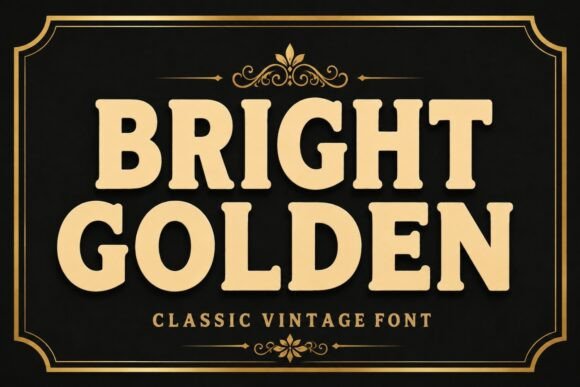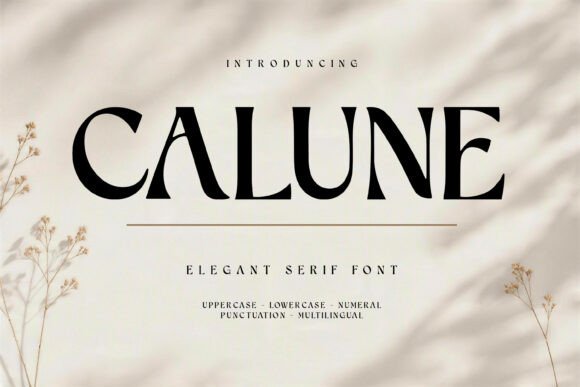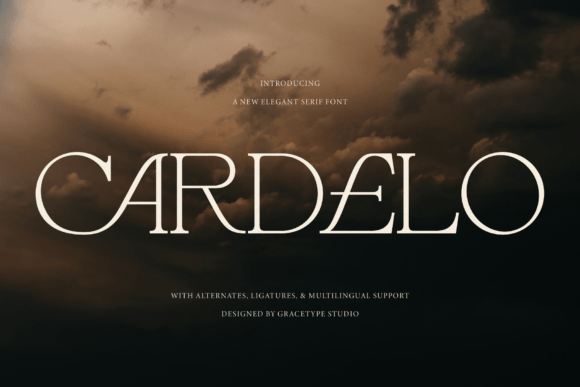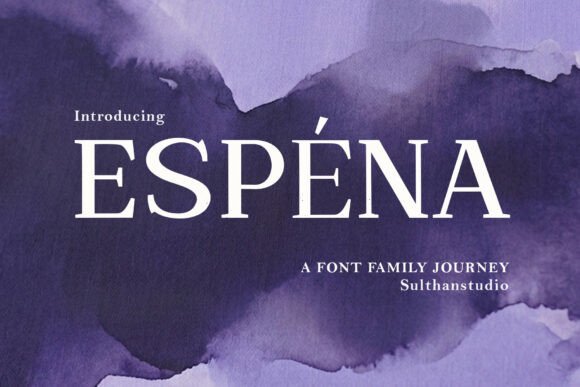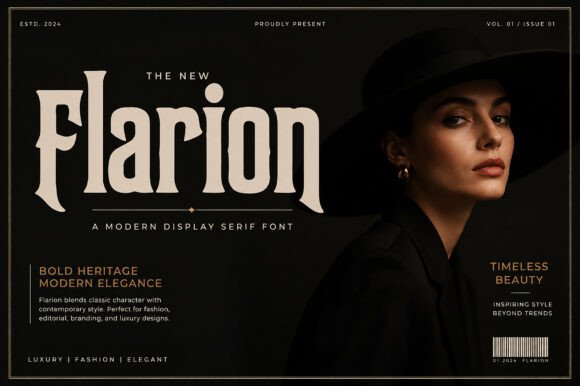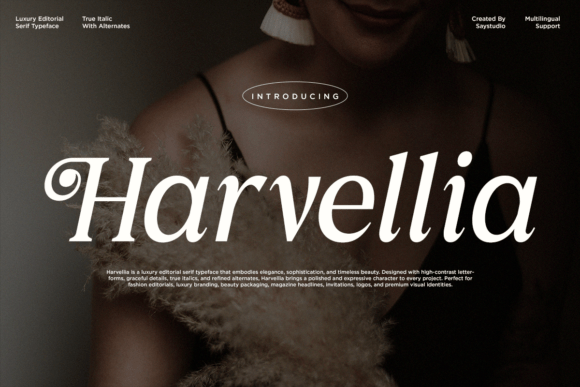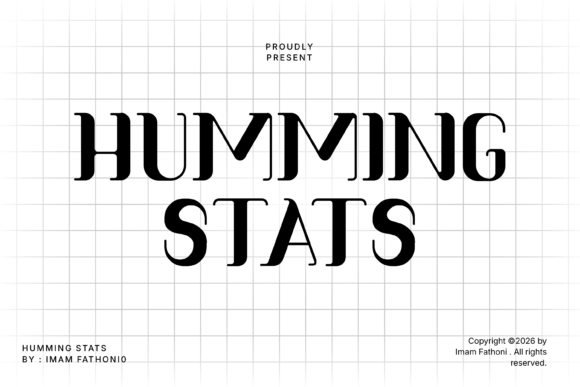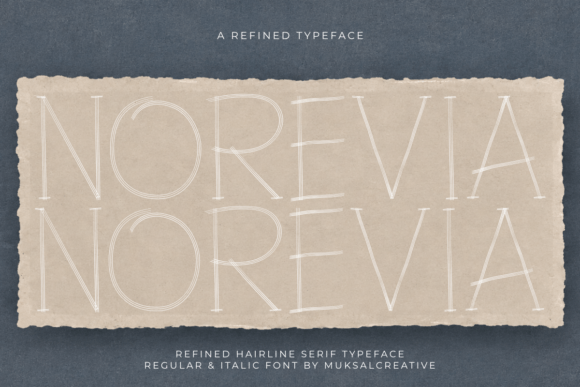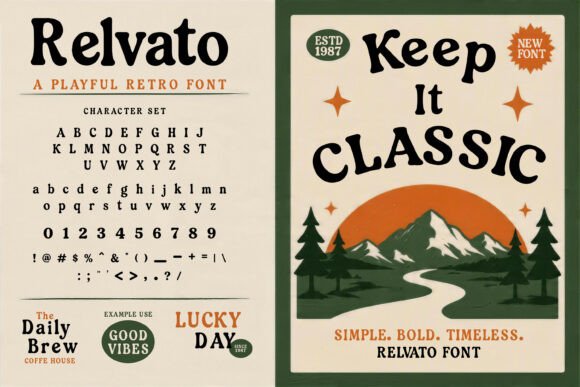
Serif fonts sell luxury more reliably than any other typographic decision, which is why the category is crowded with releases that describe themselves in identical language. Elegant, refined, sophisticated, editorial. These sixteen recent serif fonts are covered with attention to the one thing the marketing copy never mentions: stroke contrast, and whether the font survives leaving a screen.
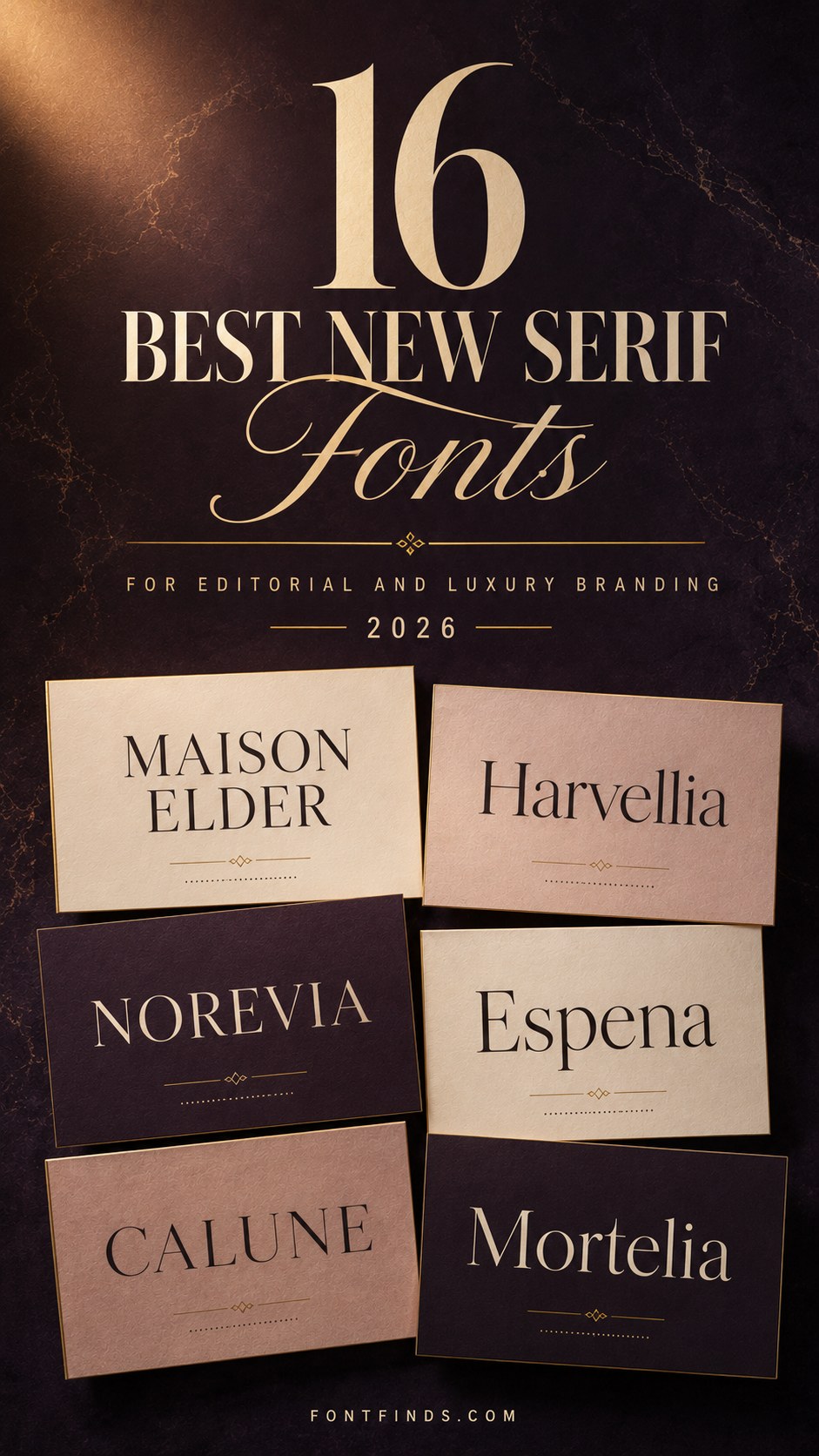
Stroke Contrast Decides Everything
Every practical question about a serif comes back to how much thinner the thin strokes are than the thick ones. That single measurement predicts where the font works and where it fails.
Low contrast. Thin and thick strokes are close in weight. Survives body text, small sizes, embroidery, uncoated paper and single-colour reproduction. Reads as sturdy and readable rather than luxurious.
Moderate contrast. Visible difference without extremes. The most useful range for brand work, since it reads as refined while still functioning at caption size and in most print conditions.
High contrast. Dramatic difference, approaching hairlines. Reads as expensive and fails in every physical production method. Screen and coated print only, and only at size.
Hairline. The thin strokes are barely present. Nothing looks more premium and nothing is more fragile. Large format and high-quality print exclusively.
Before comparing any two serifs, decide which band your project needs. That question eliminates most of the category and makes the remaining choice straightforward.
On identical marketing copy. Several fonts below describe themselves as elegant, refined and editorial in nearly the same words. That is not laziness, it is that the category sells on those associations. Judge from the letterforms in the specimen image, because the descriptions genuinely will not differentiate them.
16 New Serif Fonts
High Fashion Drama
1. Cardelo
Cardelo is built for high-fashion drama and editorial luxury. Fashion serifs share a specific technical signature: extreme stroke contrast, meaning the thin parts are dramatically thinner than the thick parts.
That contrast is the fastest route to perceived expense, and it is also the fastest route to a font that fails in production. Hairlines disappear in embroidery, break in foil stamping and vanish on uncoated paper. This is a screen and coated-print typeface.
My take: Extreme contrast is why it reads expensive and why it will not survive a woven label. Plan accordingly.
Contemporary Elegance
2. Moras
Moras blends fluid motion with structured sophistication. Fluid in a serif usually means slightly curved stems or asymmetric terminals, borrowed from calligraphy rather than from metal type.
Those calligraphic touches read as contemporary because historical serifs were geometrically rigid. The caution is that fluid details are the first thing lost when a font is scaled down, so check at small sizes before assuming the character carries through.
My take: Calligraphic details are what make it feel current and the first thing to vanish when scaled down.
Editorial Grace
3. Espena
Espena aims at refined artistic poise and high-fashion luxury. This is the third font in this batch describing itself in nearly identical terms, which says something useful about the market.
Luxury serif is a crowded category because it sells. That means competent releases are plentiful and genuinely distinctive ones are rare. If differentiation matters for your brief, look at the specific letterforms rather than the marketing language, because the copy will be the same everywhere.
My take: Luxury serif is crowded because it sells. Judge on letterforms, since every listing uses identical language.
High Contrast
4. Harvellia
Harvellia is an elegant high-contrast serif for sophisticated contemporary work. High contrast is worth understanding as a spectrum rather than a binary.
Moderate contrast survives body text and small sizes. Extreme contrast, the Didone end, only works large. Before choosing, decide whether the font needs to carry captions and product details or only headlines, because that single question eliminates most of the category.
My take: Decide whether it needs to carry captions. That one question eliminates most high-contrast serifs immediately.
Refined Curves
5. Calune
Calune is crafted with graceful curves and refined contrast. Curve quality in a serif is genuinely difficult to assess from a specimen image and easy to assess in use.
Type a lowercase o, s and g at large size. Well-drawn curves have smooth continuous transitions with no flat spots or sudden changes in direction. Poorly drawn ones show visible corners where the curve segments meet, which is invisible small and obvious large.
My take: Set a large lowercase o and s. Flat spots in the curves are invisible small and impossible to unsee large.
How do I pair a serif with a sans serif?
Match the x-heights so the two look consistent at the same point size, and give one font the personality while the other stays quiet. Two expressive faces in one system means neither is doing its job.